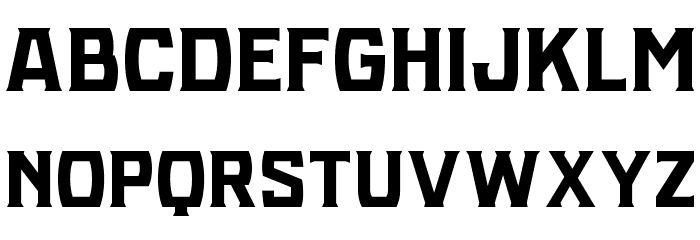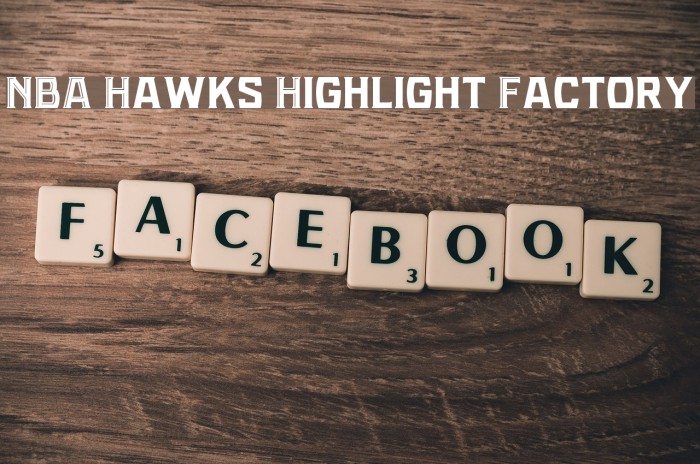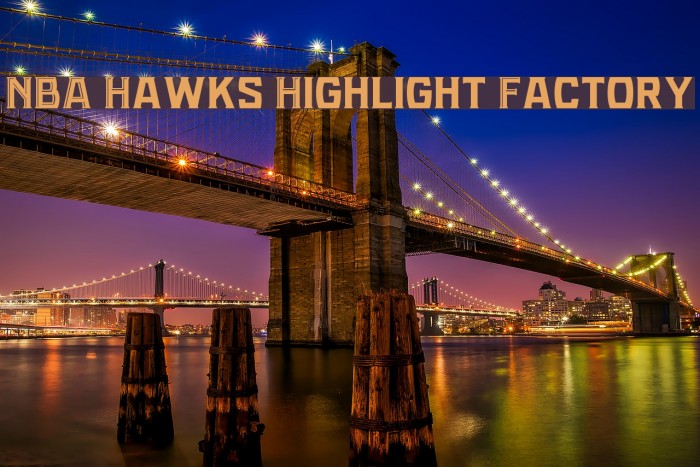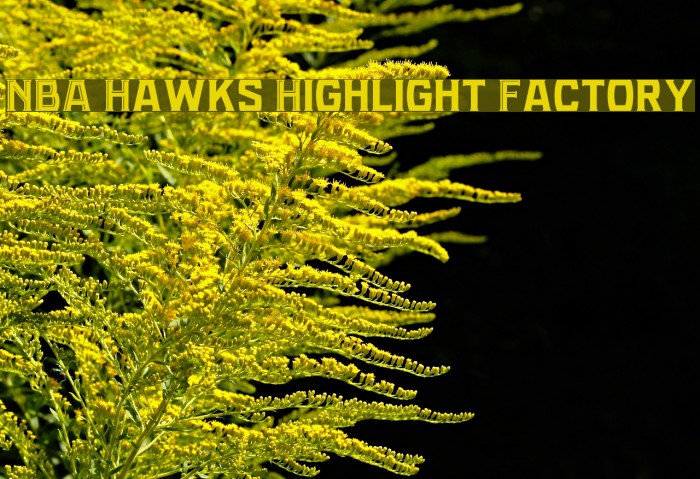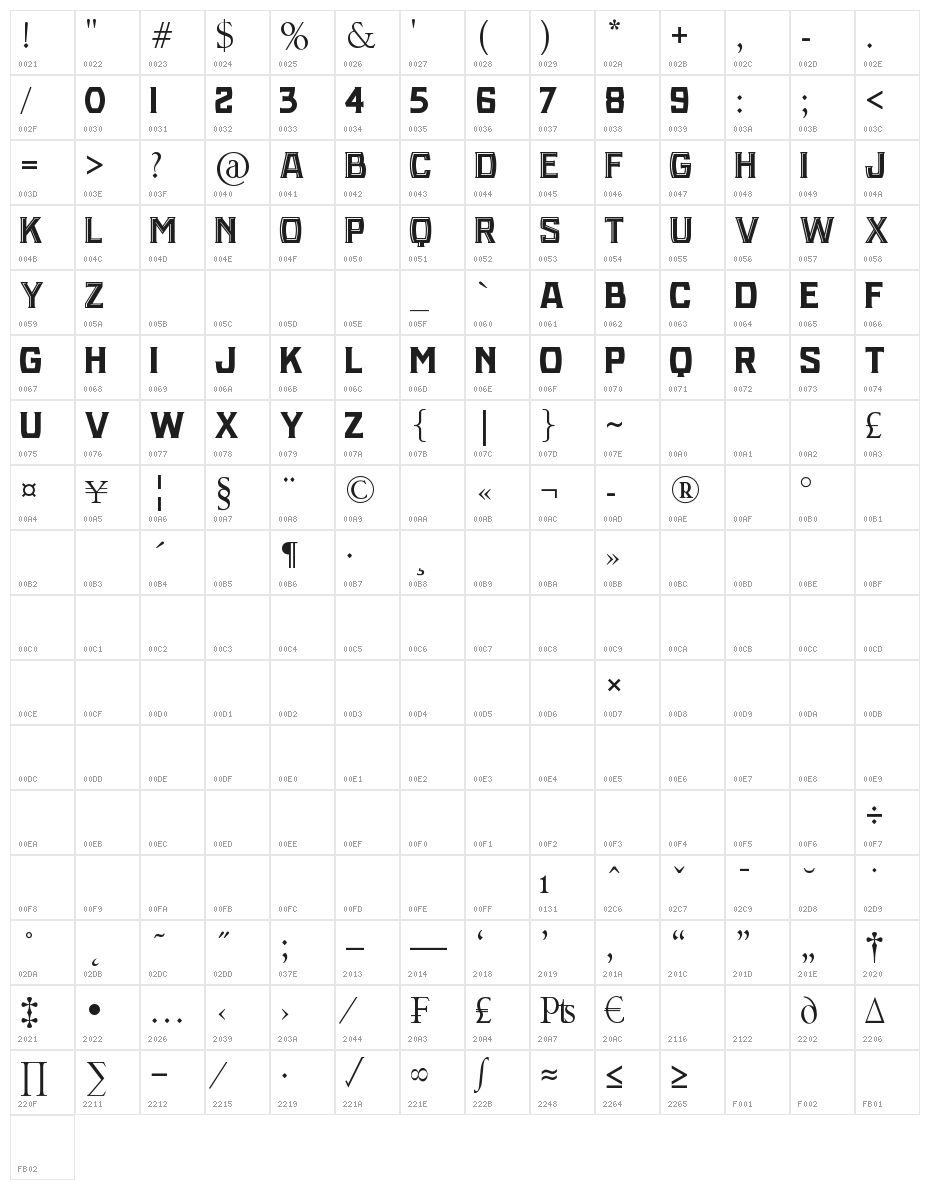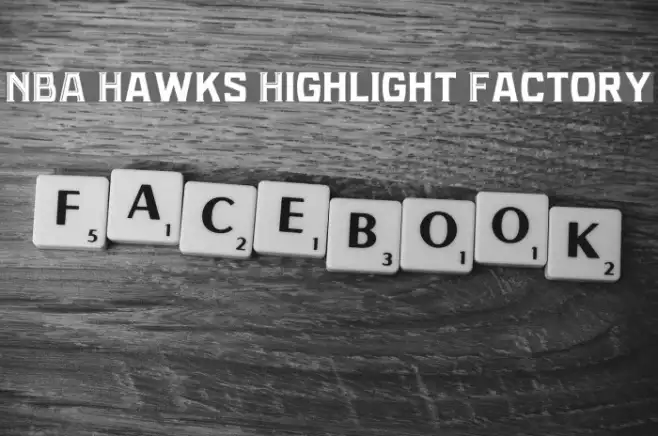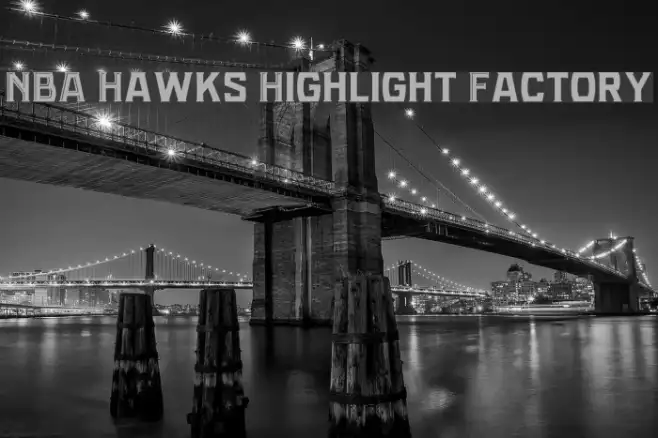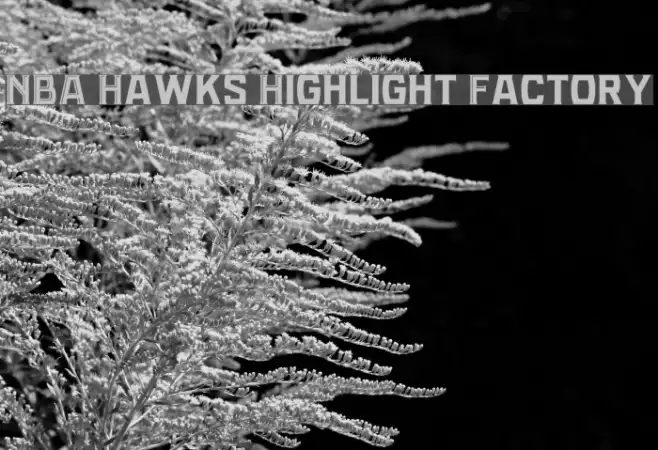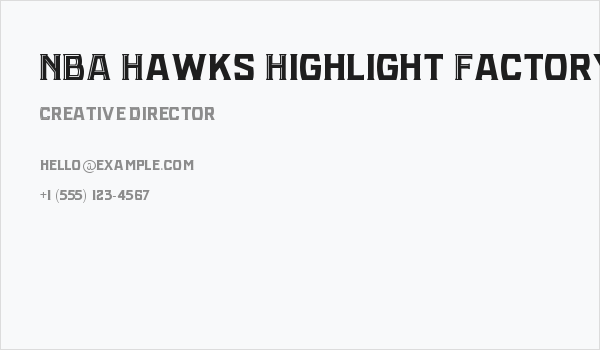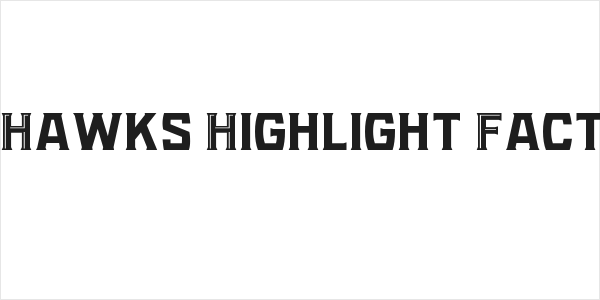
NBA Hawks Highlight Factory Font
This font features a bold and dynamic style with strong geometric elements. The uppercase letters are characterized by sharp angles and a slightly condensed form, giving them a powerful and assertive appearance. The numbers and special characters maintain this boldness, ensuring consistency across all glyphs. The font's design is reminiscent of sports branding, with a focus on clarity and impact. Its high contrast and distinct letterforms make it ideal for attention-grabbing headlines and logos.
A bold, geometric font ideal for sports branding and impactful headlines.
- Proposed Projects: This font is perfect for sports team logos, event posters, merchandise branding, and any project requiring a strong, dynamic visual presence.